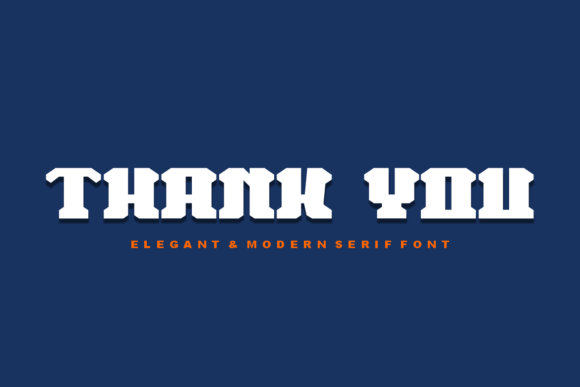
Introduction to Gasony Font
Have you ever stared at a blank design canvas, trying to bring your creative vision to life? The moment when a spark of inspiration strikes, and you frantically search for the perfect font to match your high-quality design is a familiar one for many designers. This is where the Gasony Font comes in – a game-changing design resource that can elevate your creative project to new heights.
With its bold and futuristic vibe, the Gasony Font is a versatile design tool that can add a touch of sophistication to a wide range of modern projects. Whether you’re working on a free download or a commercial project, this font is sure to make a statement. Its transparent background and clean lines make it a great choice for designers who want to add a professional touch to their designs.
Key Features of Gasony Font
- High-quality design: Gasony Font offers a sophisticated and elegant design perfect for creative projects.
- Transparent background: Gasony Font features a transparent background, allowing for seamless integration into various design elements.
- Unique characteristics: Gasony Font features a unique blend of modern and vintage elements, making it perfect for designers looking to add a touch of elegance and sophistication to their creative projects.
- Design resource: Gasony Font is a valuable addition to any designer’s toolkit, offering a high-quality design resource that can be used in a variety of creative projects, from branding and advertising to editorial and publishing.
Honest Review: Gasony Font
I recently came across the Gasony Font, and I’m excited to share my thoughts on this design resource. As a designer, I’m always on the lookout for high-quality fonts that can elevate my creative projects. The Gasony Font definitely delivers.
What works well: ✨ The Gasony Font is available for free download, which is a major plus. The font is also versatile and can be used for a variety of design projects, from logos to brochures. I also appreciate the transparent background, which makes it easy to use in design software.
- High-quality design: The Gasony Font is well-designed and looks great on any project.
- Transparent background: Easy to use in design software.
Limitations: ⚠️ While the Gasony Font is a great design resource, it may not be suitable for all design projects. The font is a bit on the playful side, so it may not be the best choice for formal or corporate designs.
Overall, I’m impressed with the Gasony Font. It’s a great addition to any designer’s toolkit, and I’ll definitely be using it in future creative projects.
Tips for Getting the Most Out of Gasony Font
To get the most out of Gasony Font, use it with a transparent background to create a clean and modern design. Experiment with different font sizes and colors to add depth and visual interest to your project.
Common Use Cases for Gasony Font
Gasony Font is ideal for use in creative projects such as:
- Social media graphics and advertisements
- Posters and flyers for events and promotions